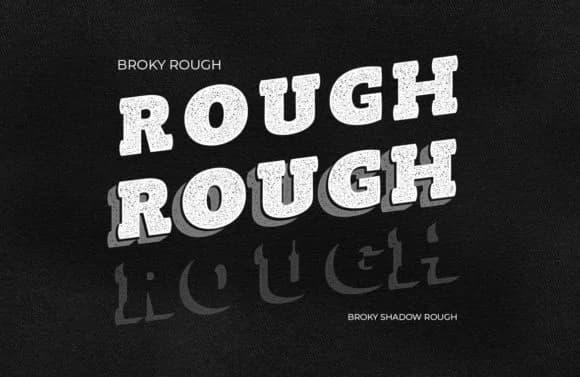
Broky by Storic commands attention through heavy slab serifs and an unmistakable western character, building letterforms that balance rawness with genuine readability. The typeface channels that time-worn aesthetic found on old saloon doors, classic film posters, and period-accurate rustic signage, bringing instant authenticity to projects hungry for personality and visual weight.
This font shines in work demanding real impact and retro atmosphere. Retro movie posters tap into its bold presence, as do vintage whiskey and craft beer label designs. Rustic wedding invitation suites gain immediate charm through these hefty letterforms. Handmade goods, artisan product packaging, and vintage boutique branding all benefit from Broky's distinct personality. DIY makers and Etsy sellers particularly value typefaces like this for establishing a cohesive, vintage-forward identity that doesn't sacrifice legibility. With alternate glyphs available, you can add visual variation and emphasis wherever your layout needs it most.
- Sturdy, Confident, Slab
Broky Font is a slab serif font that shines as a display or heading face. Pair it with a clean sans-serif or serif font for body text β the contrast creates a clear hierarchy while the two styles stay balanced and easy to read.